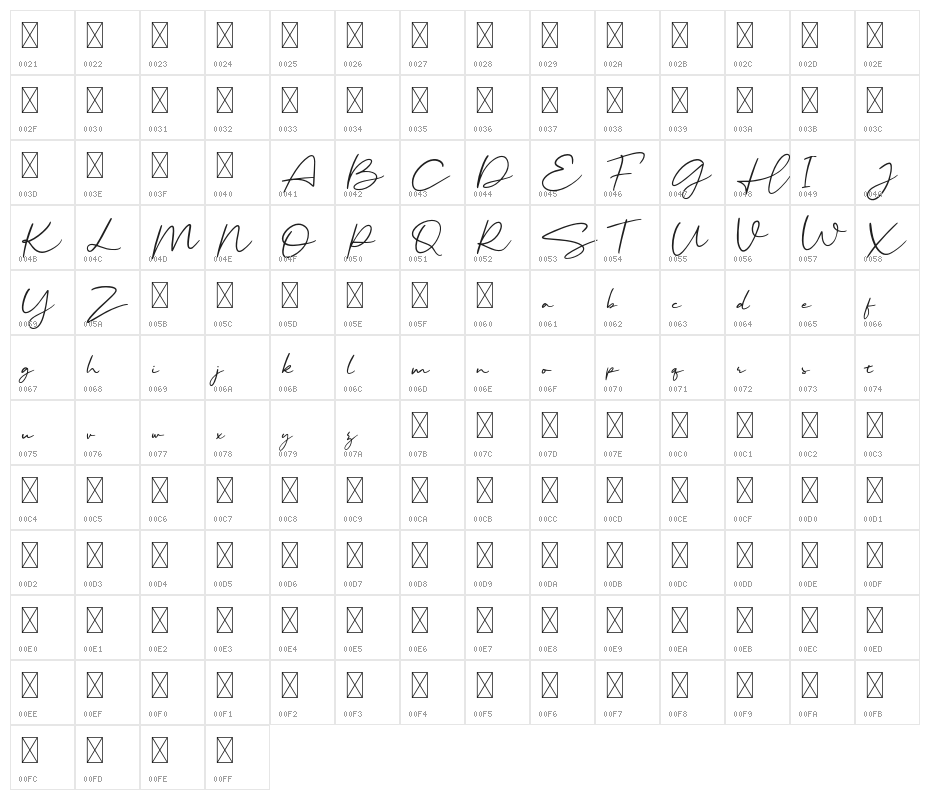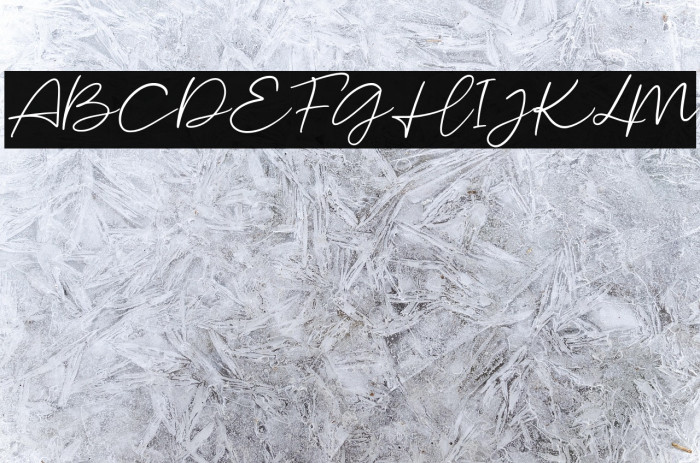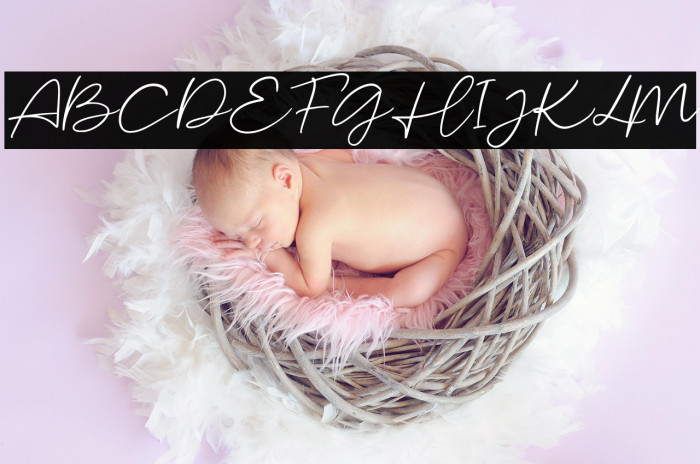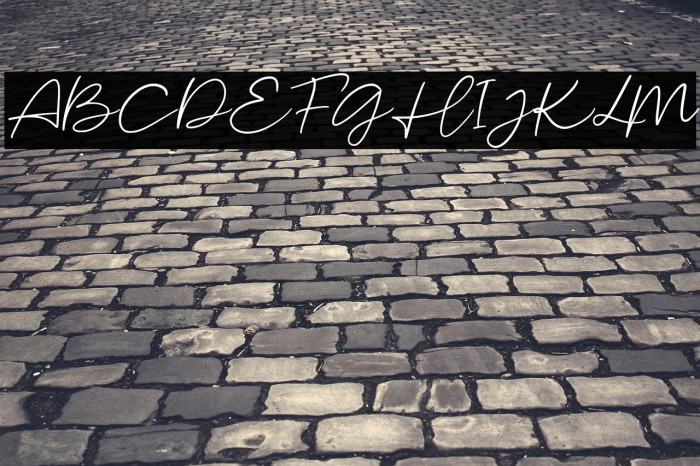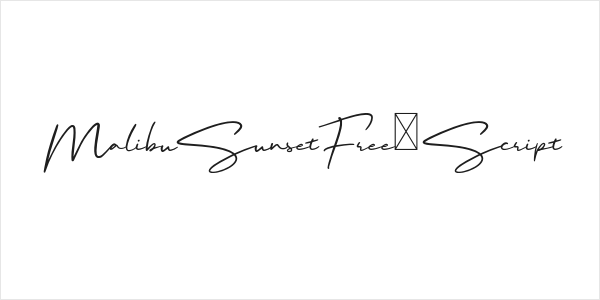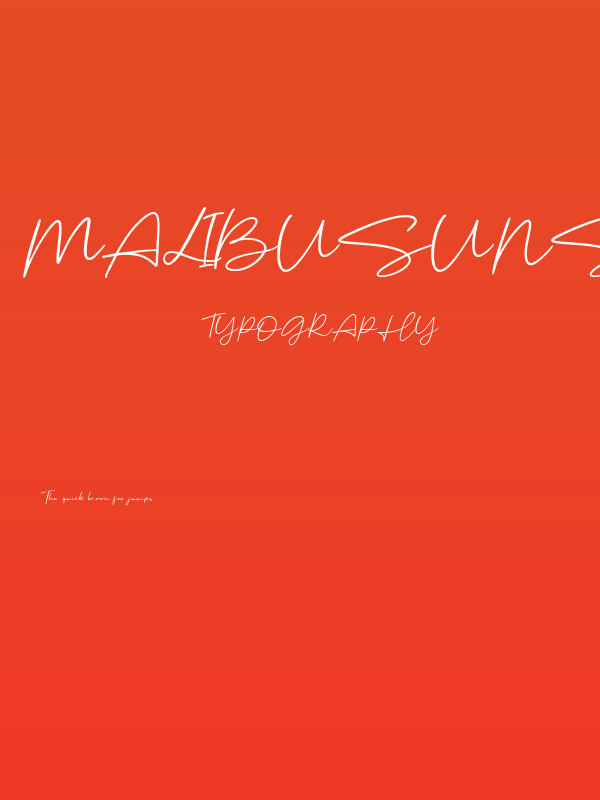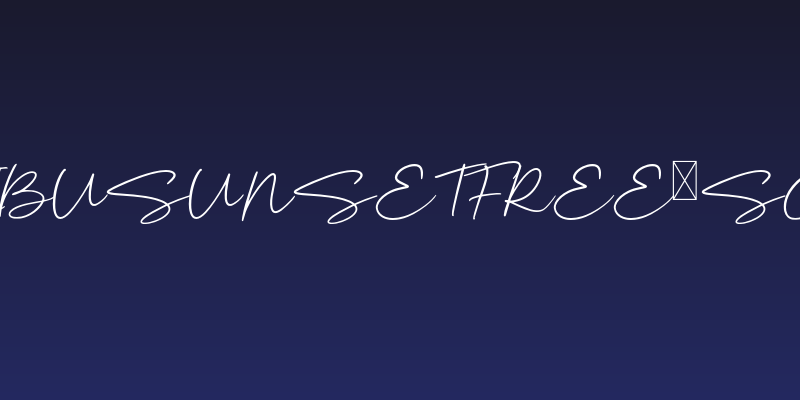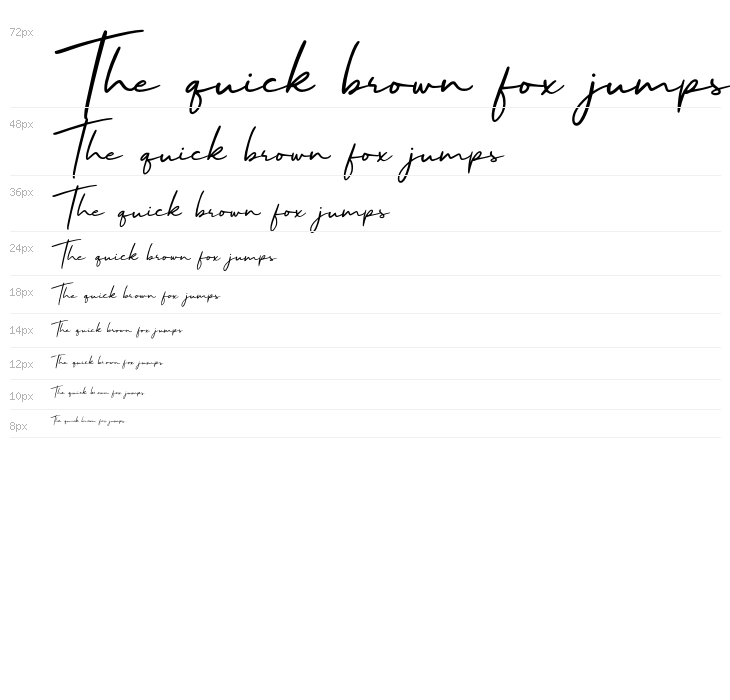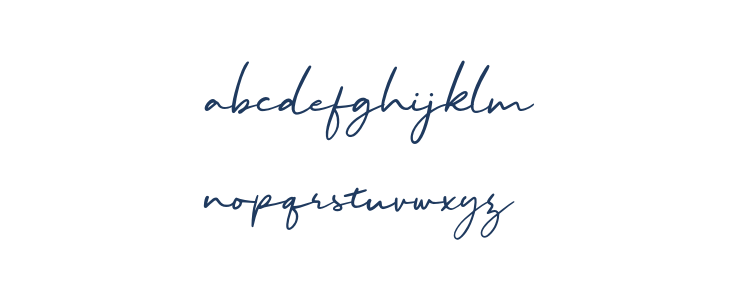
MalibuSunsetFree-Script Font
MalibuSunsetFree-Script Description
This font features a flowing, cursive style with a modern and elegant touch. The uppercase letters are tall and slightly slanted, giving a sense of movement and grace. The lowercase letters maintain a consistent flow, with smooth connections between characters, enhancing readability while preserving a handwritten feel. The overall design is light and airy, with a casual yet sophisticated appearance. This script font is perfect for projects that require a personal and artistic touch, such as invitations, greeting cards, and branding materials. Its unique style stands out, making it suitable for creative and expressive design work.
| Proposed Projects | Ideal for invitations, greeting cards, branding, and artistic design projects. |